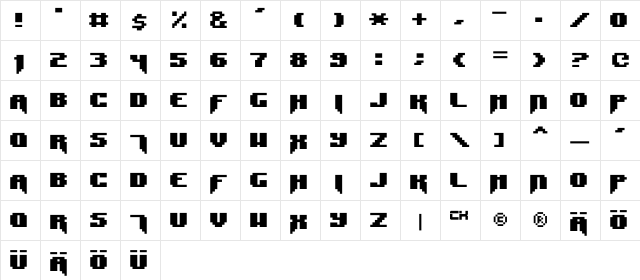
Syntax Error Regular
Syntax Error Family
Design Context for Syntax Error
Syntax Error is a composed and adaptable typeface that performs quietly and consistently across a wide range of design contexts.